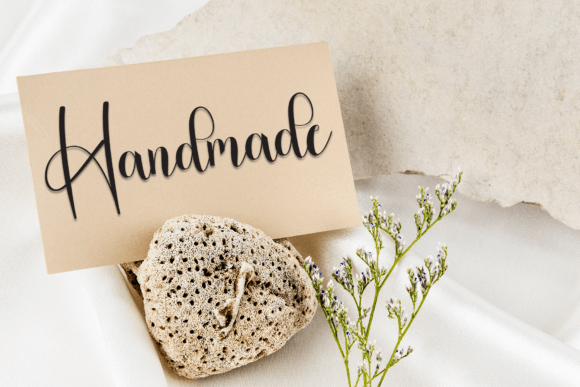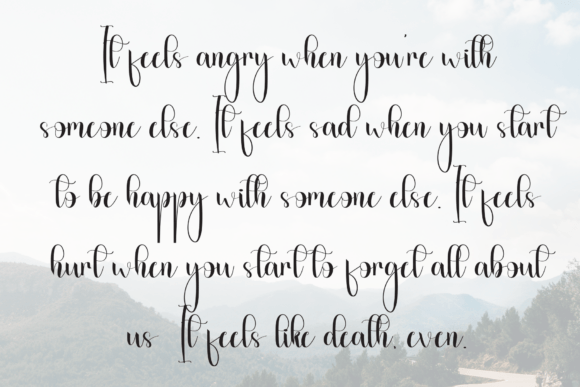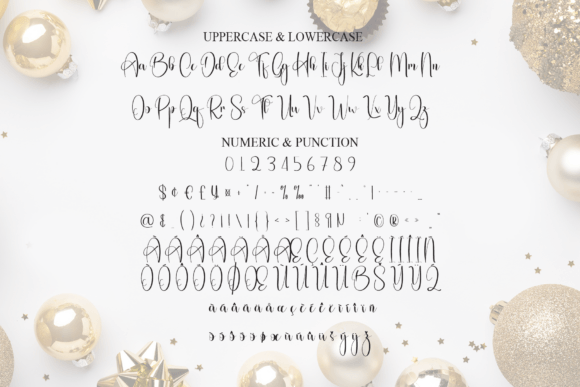
Discover the Charm of Baubles Font: A Playful Handwritten Display Font
Have you ever been in the middle of a design project, and suddenly, you’re stuck on finding the perfect font? I recall a recent experience where I was working on a wedding invitation project, and my client specifically asked for a font that exuded sweetness and friendliness. After hours of searching, I stumbled upon Baubles Font, and it instantly became the star of the show! In this article, we’ll dive into the delightful world of Baubles Font, exploring its features, uses, and everything in between.
A Personal Review of Baubles Font
As a designer, I’m always on the lookout for fonts that can bring a touch of whimsy and joy to my projects. Baubles Font has quickly become one of my go-to fonts, and here’s why:
- ✨ Playful and Affable: Baubles Font has a charmingly playful and affable personality that makes it perfect for designs that require a touch of sweetness and friendliness.
- ✅ Highly Versatile: This font is suitable for a wide range of design projects, from wedding invitations and cards to social media graphics and more.
- 💫 Unique Character: Baubles Font has a distinctive character that sets it apart from other handwritten fonts, making it perfect for designers looking to add a personal touch to their work.
While Baubles Font is an amazing addition to any design project, there are a few quirks to keep in mind:
- 🤔 Limited Use in Small Text Sizes: Due to its playful and cursive nature, Baubles Font may not be the best choice for small text sizes, as it can become difficult to read.
- ⚠️ Glyph Limitations: While Baubles Font comes with a range of glyphs and OpenType features, it may not have every special character or symbol you need.
The Backstory of Baubles Font
Baubles Font was designed with the intention of creating a playful and affable handwritten display font that would bring joy and whimsy to design projects. Inspired by the charm of traditional handwritten fonts, Baubles Font was crafted to be both elegant and approachable. Whether you’re a designer, crafter, or creative hobbyist, Baubles Font is sure to become a favorite in your font collection.
| What is Baubles Font best used for? | Baubles Font is perfect for designs that require a touch of sweetness and friendliness, such as wedding invitations, cards, and social media graphics. |
| Is Baubles Font suitable for small text sizes? | Due to its playful and cursive nature, Baubles Font may not be the best choice for small text sizes, as it can become difficult to read. |
| Does Baubles Font come with OpenType features? | Yes, Baubles Font comes with a range of OpenType features and glyphs, allowing you to add a personal touch to your designs. |